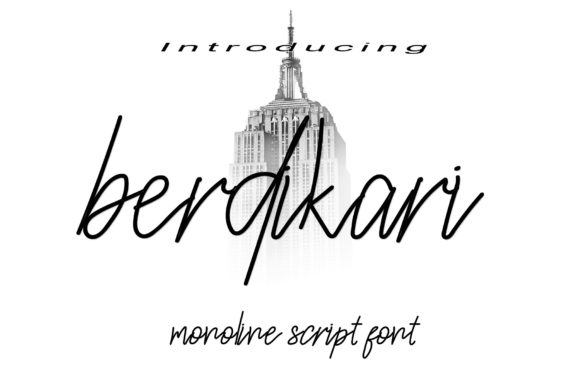
The Berdikari Font: A Designer’s New Best Friend
I’ll never forget the time I was working on a wedding invitation project, and my client asked for a font that was both elegant and modern. I scoured the internet, tried out countless fonts, but nothing seemed quite right. That was until I stumbled upon the Berdikari font. This beautiful, thin, and refined script font has been a game-changer for me, and I’m excited to share it with you! 💕
So, what makes Berdikari so special? Let’s dive into the good stuff! 😊
• ✨ Elegant and Modern Look: Berdikari has a classy, sophisticated feel that’s perfect for logos, branding, invitations, stationery, wedding designs, social media posts, and more!
• ✅ High Versatility: This font can be used for both personal and professional projects, making it a great addition to any designer’s toolkit.
• 💯 Readable and Legible: Despite its thin and refined design, Berdikari remains highly readable, even at smaller font sizes.
Of course, no font is perfect, and Berdikari has a few minor quirks to be aware of:
• 🤔 Limited Contrast: Berdikari’s thin design can make it difficult to read in certain situations, such as when used on a busy background or at very small font sizes.
• ⚠️ Glyph Limitations: While Berdikari has a wide range of glyphs, it may not have every special character or symbol you need.
Berdikari comes with a range of OpenType features and glyphs that can help take your designs to the next level:
• Stylistic Alternates: Swap out certain characters for alternative designs that add some extra flair to your text.
• Glyphs: Access a wide range of special characters and symbols to add some personality to your design.
The Story Behind Berdikari
Berdikari was designed with the goal of creating a beautiful, elegant, and modern script font that would be perfect for a wide range of design projects. Inspired by the beauty of traditional calligraphy, Berdikari’s creator aimed to craft a font that would be both refined and versatile.
What is Berdikari? Berdikari is a beautiful, thin, and refined script font perfect for a wide range of design projects.
What can I use Berdikari for? Berdikari can be used for logos, branding, invitations, stationery, wedding designs, social media posts, and more!
Is Berdikari easy to read? Yes, Berdikari is highly readable, even at smaller font sizes.